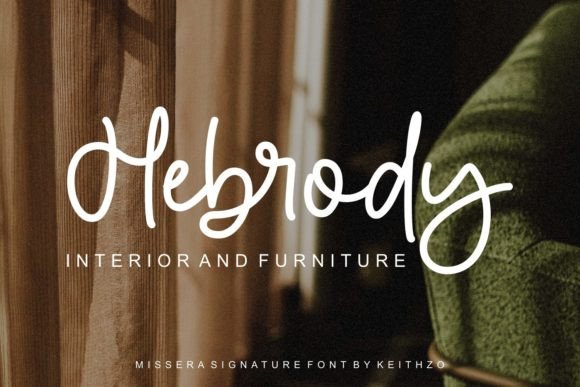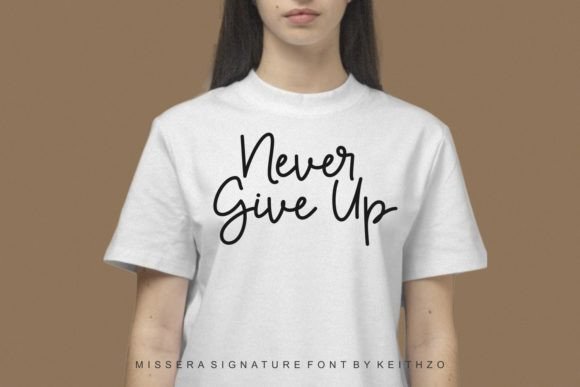
Missera Signature Font
Missera Signature is a cute and charming font. Harmonious outlined, this font will brighten up each of your designs. Add it confidently to your projects, and you will love the results. This font is PUA encoded, which means you can easily access all of the wonderful glyphs and ligatures!